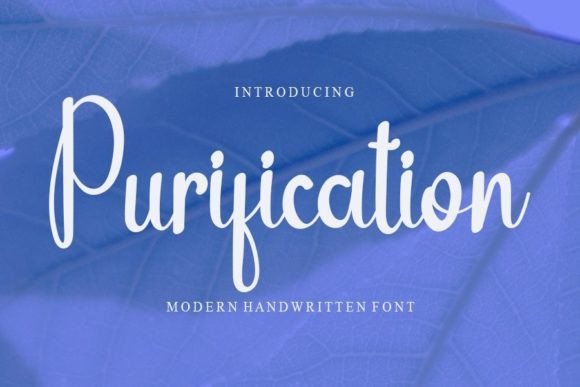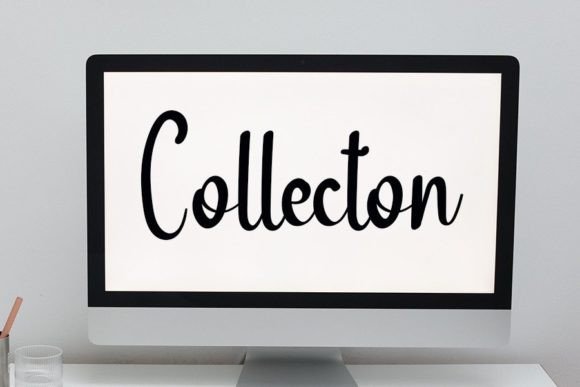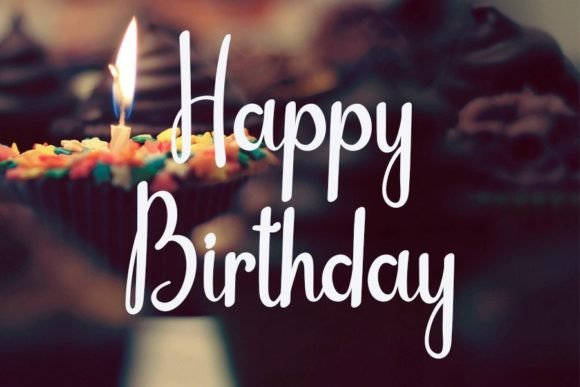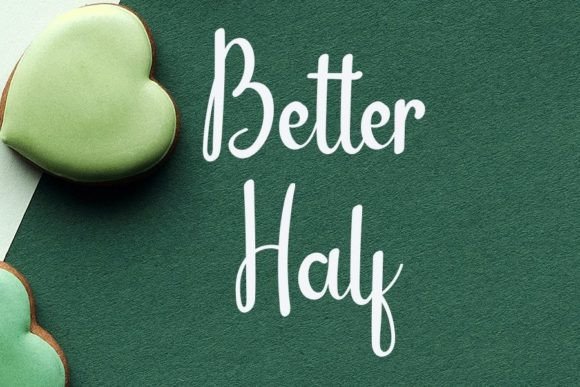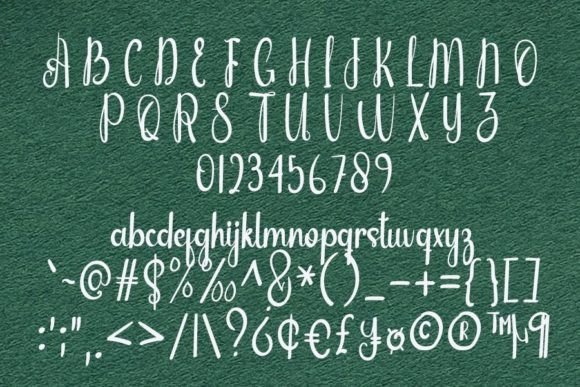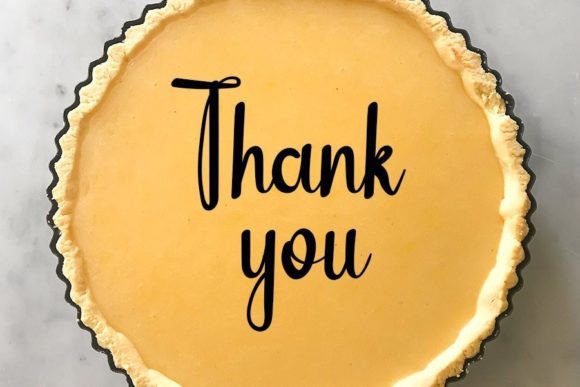
Purification Font
About Purification Font
Purification is a welcoming handwritten font, meticulously crafted to earn a special place as a beloved choice. It seamlessly blends timeless calligraphic influences with a contemporary and fresh feel, resulting in a font that is not only friendly but also exudes a touch of class.
The font’s design strikes a harmonious balance by retaining the elegance of classic calligraphy while infusing a modern and vibrant essence. This unique combination makes Purification a versatile and appealing option for a wide range of creative projects.
Purification goes beyond being just a typeface; it’s a reliable companion for various design endeavors. Whether used in branding, invitations, or other creative works, it imparts a sense of approachability and sophistication. The careful design of each character ensures a fluid and cohesive visual experience, making it a favorite among diverse audiences.
One standout feature of Purification is its ability to maintain a friendly demeanor while accommodating both traditional and contemporary design aesthetics. This adaptability makes it suitable for a variety of applications, allowing designers to infuse their projects with a timeless yet fresh appeal.
In conclusion, Purification is more than just a font; it’s a thoughtfully crafted design element that embodies both warmth and sophistication. With its friendly handwritten style and the perfect blend of classic and modern influences, Purification is poised to become a true favorite in your creative toolkit, adding a touch of charm to your projects with ease.